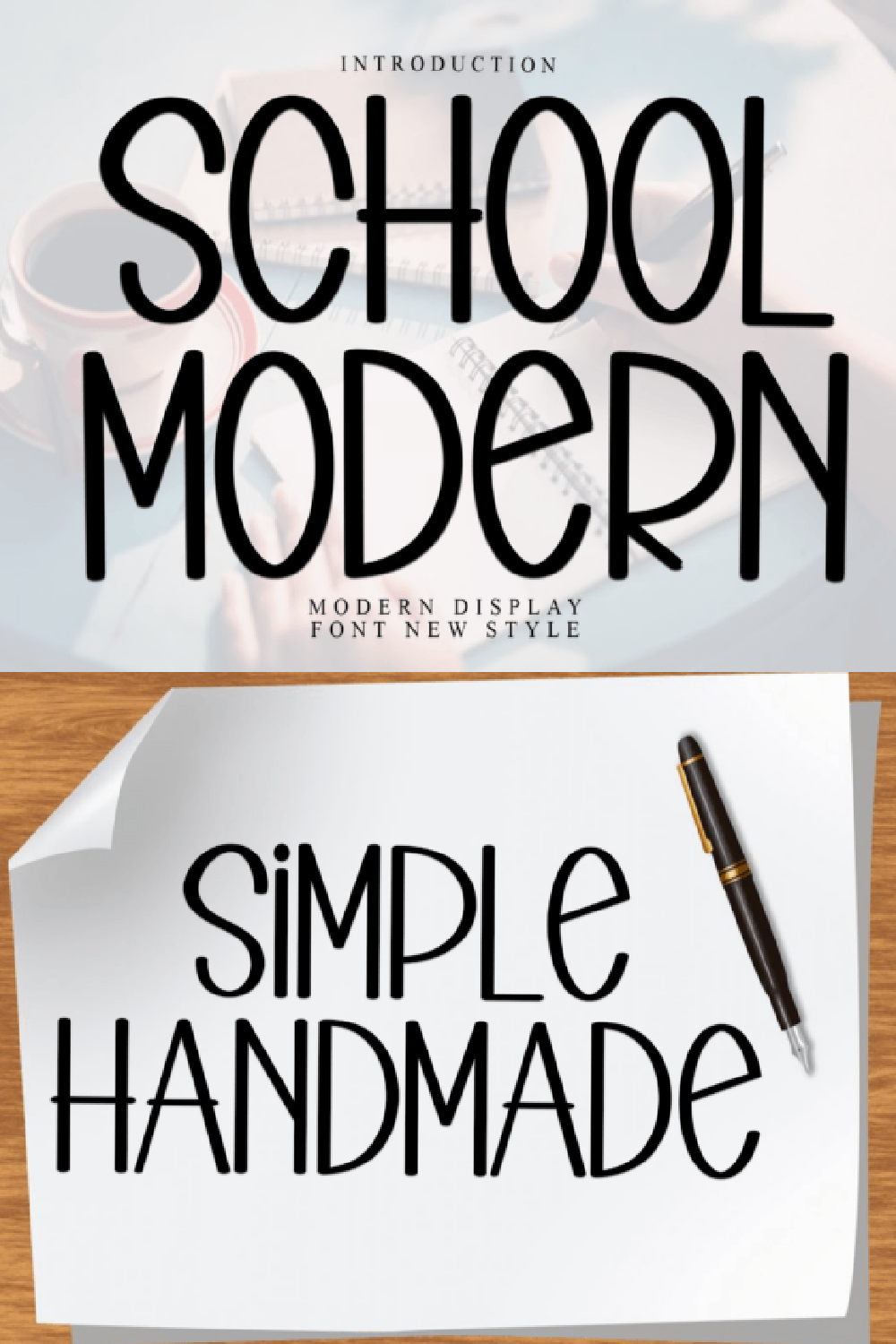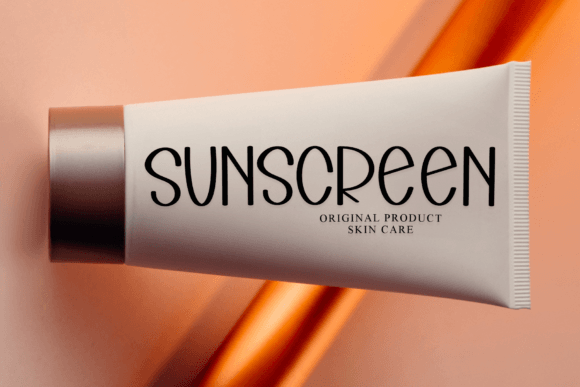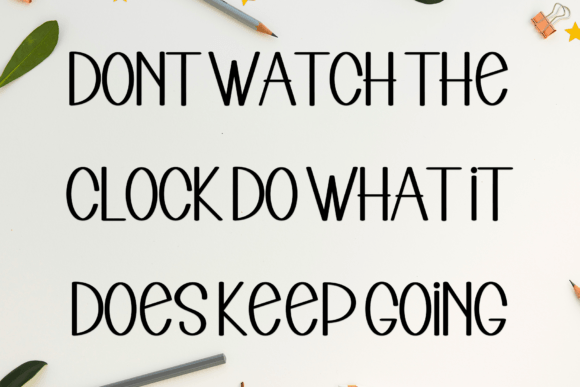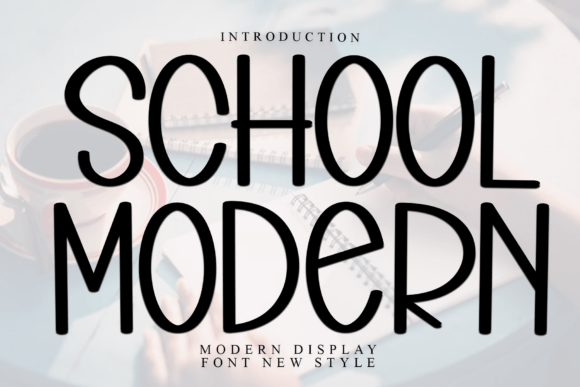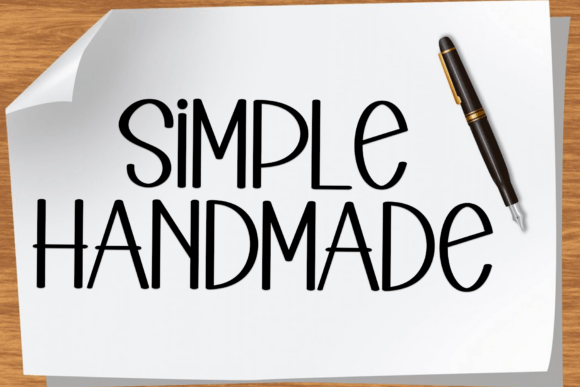
School Modern Font
About the School Modern Font
The wait is over! The incredible School Modern Font is now available for your design toolkit. School Modern is a sweet and friendly handwritten font. Its natural and unique style makes it incredibly fitting to a large pool of designs. The only limit is your imagination!
School Modern Font Usage Examples